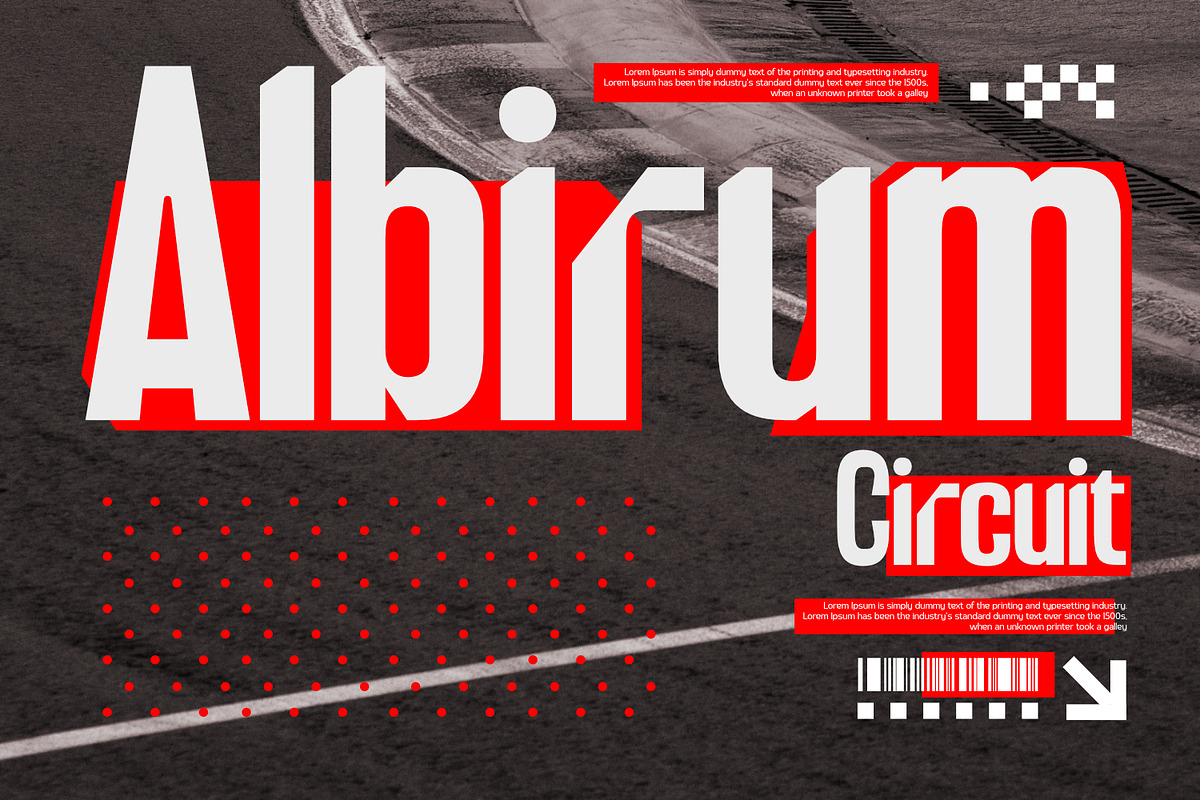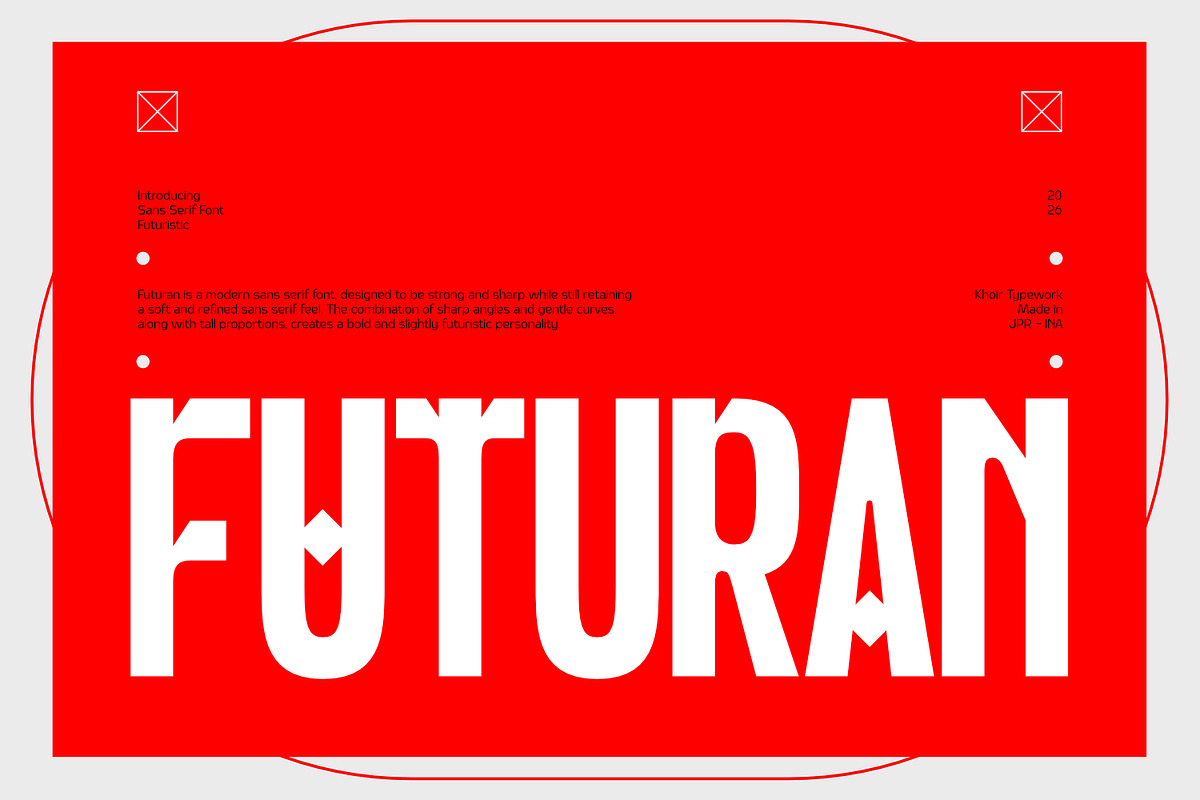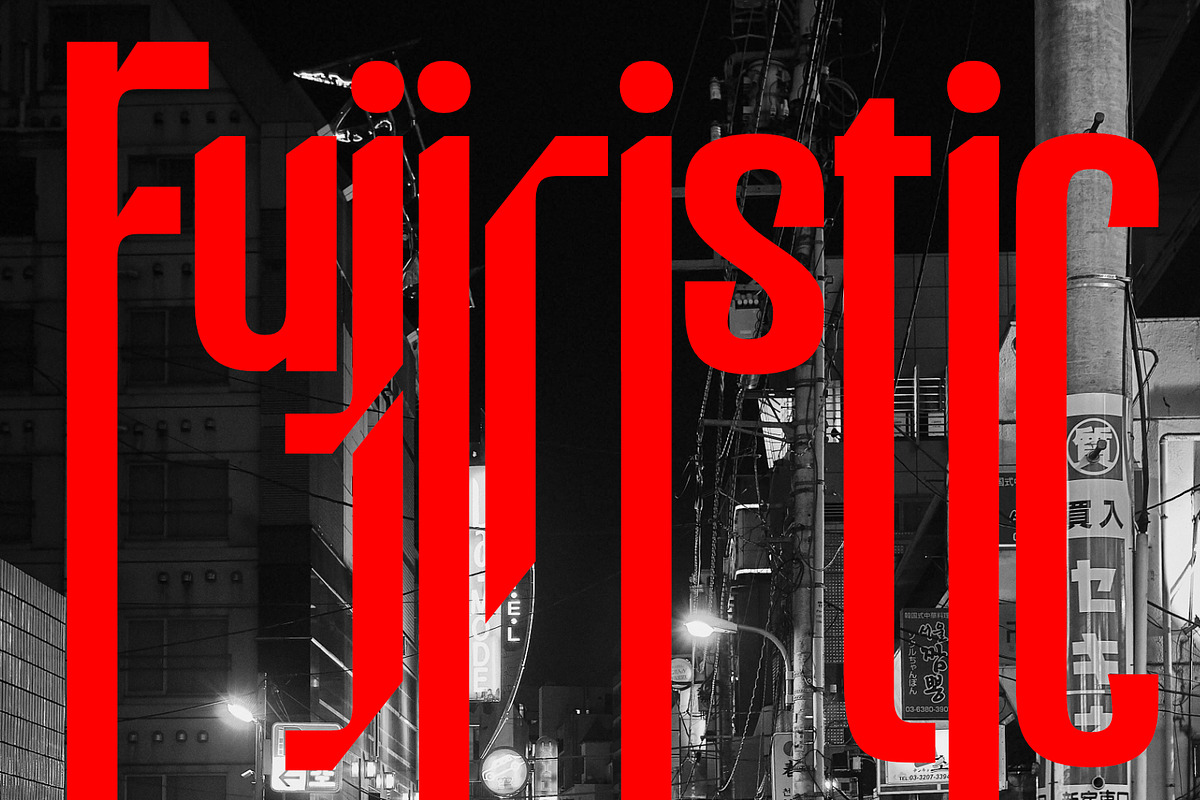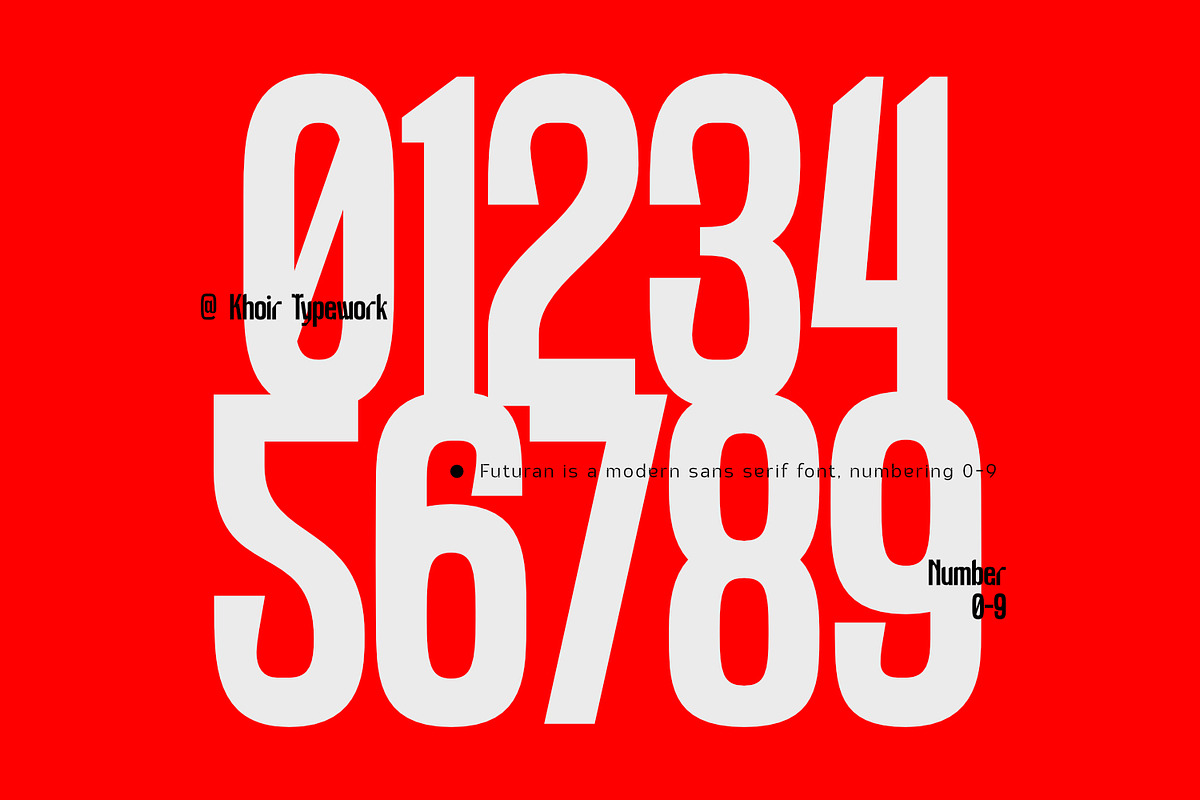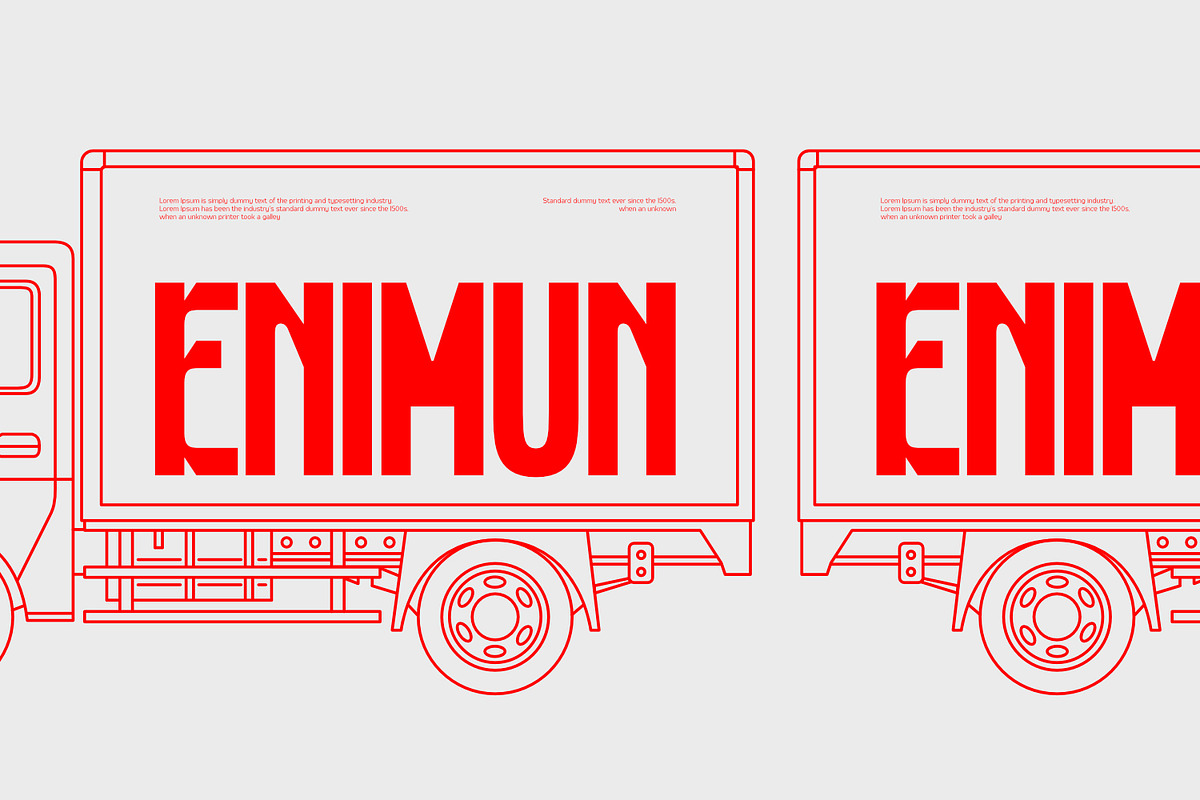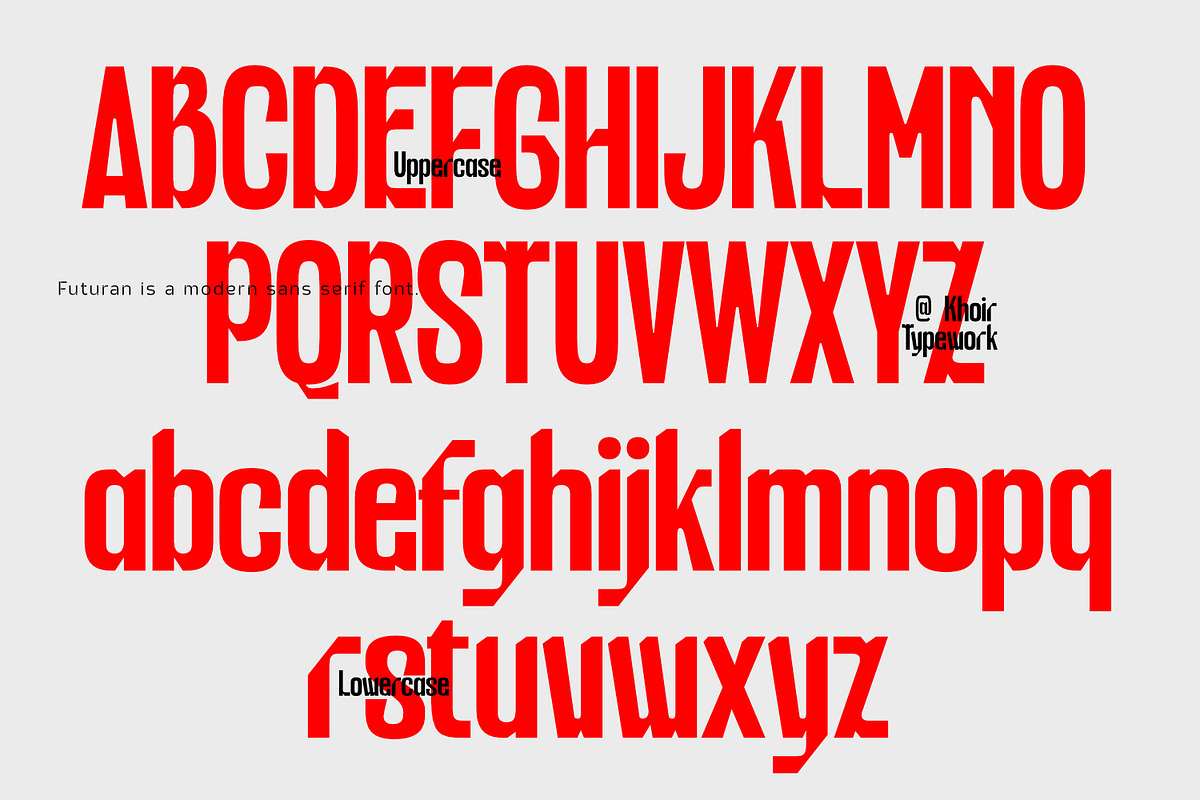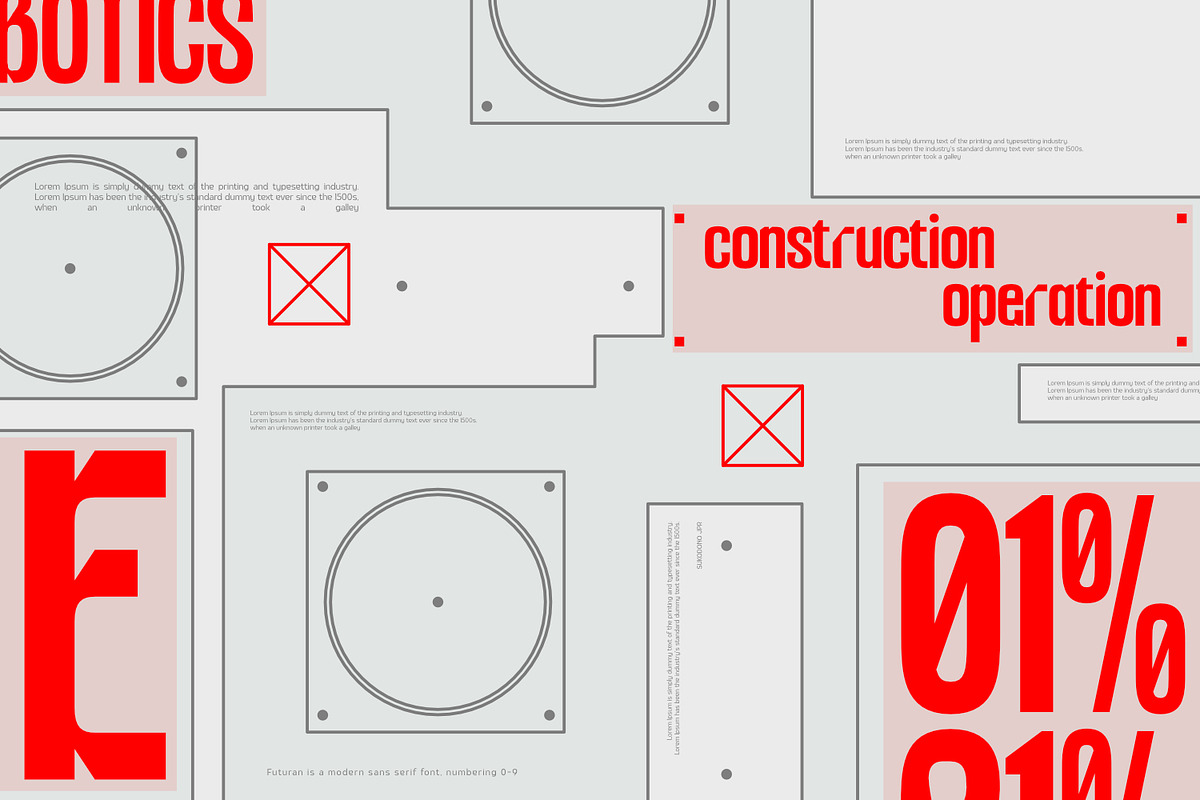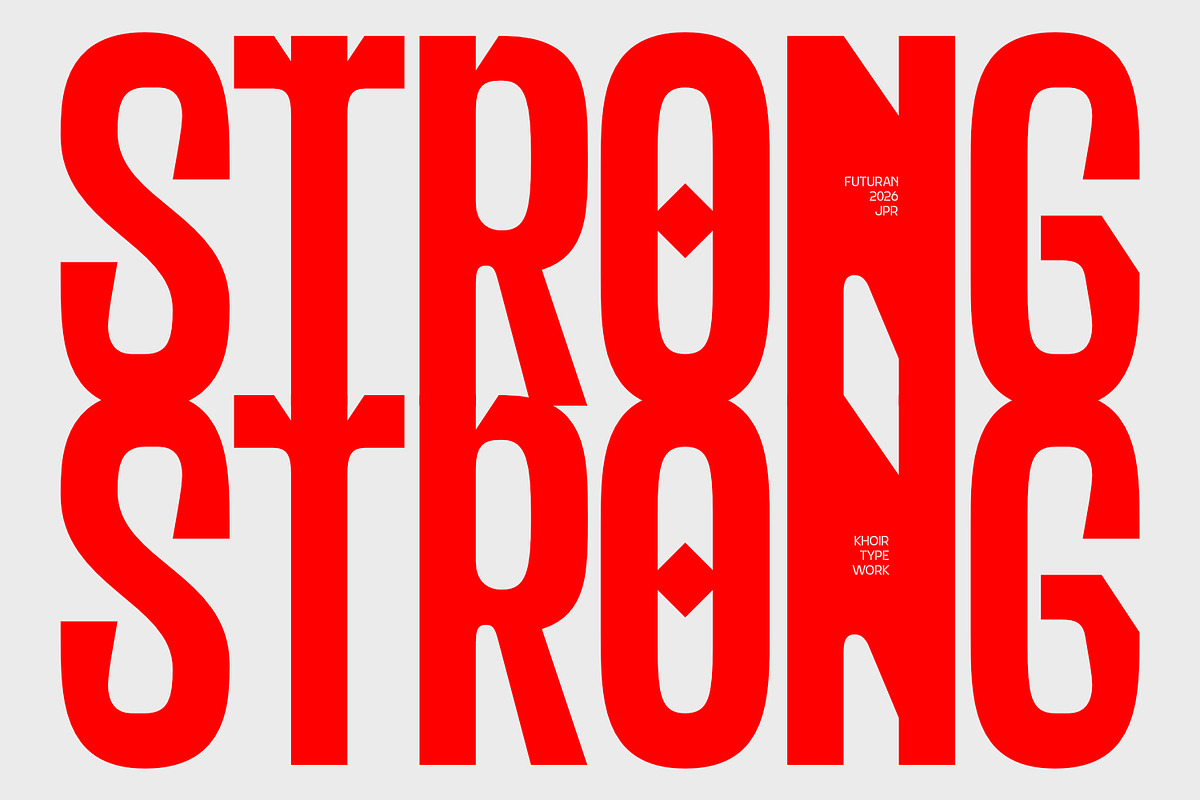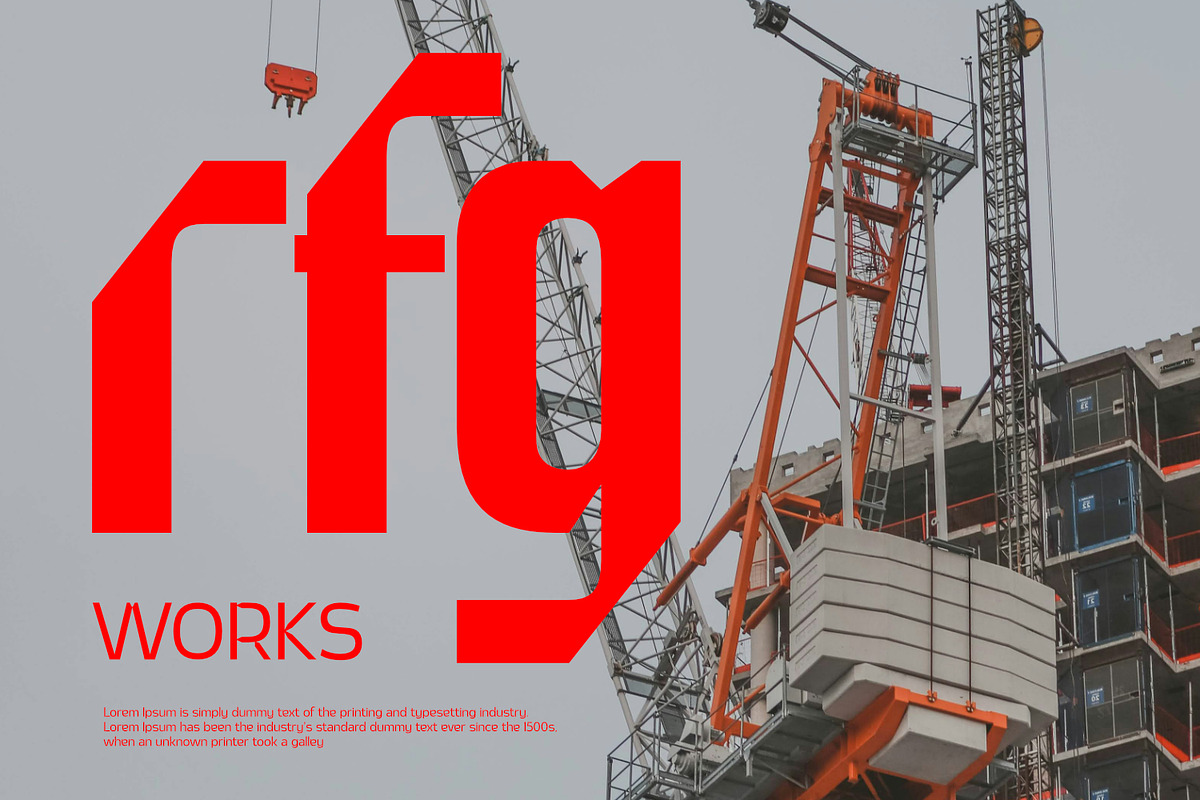
futuran - Sans serif
Futuran is a modern sans serif font, designed to be strong and sharp while still retaining a soft and refined sans serif feel. The combination of sharp angles and gentle curves, along with tall proportions, creates a bold and slightly futuristic personality.
Lowercase
75+ Language
Alternate
Ligature